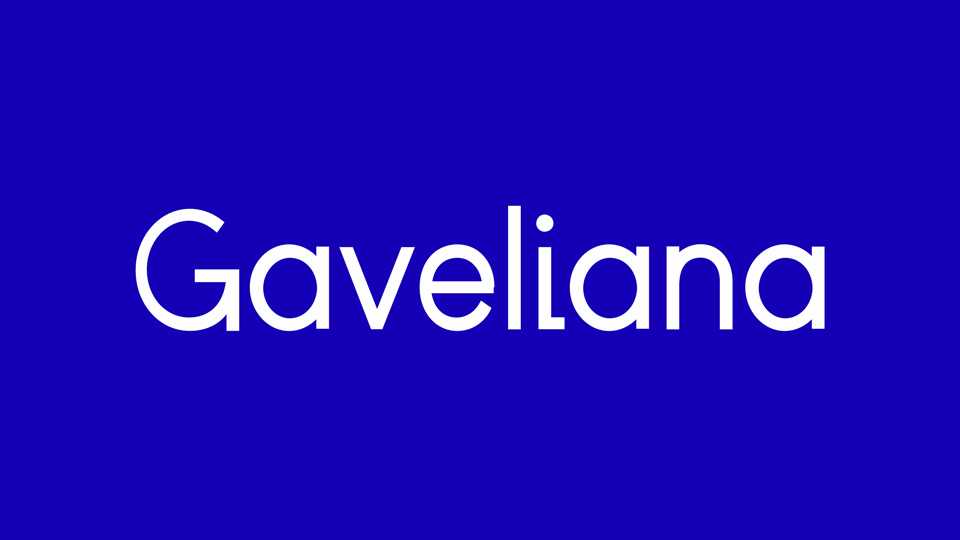
Download Gaveliana font, a contemporary geometric grotesque typeface originally designed for a personal project. Gaveliana works great both for titles and texts, can be used for editorial purposes.
Designer: Iordanis Passas